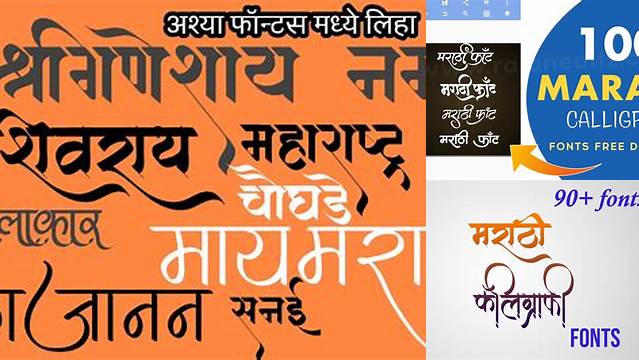
Marathi Fonts: Copy & Paste Online For Free!
Hey everyone! If you're looking to jazz up your text with some cool Marathi fonts, you're in the right place. We're diving deep into the world of Marathi font styles online, specifically focusing on how you can copy and paste them for free. It's all about making your content pop with that unique Marathi flair. So, get ready to explore the best fonts, learn how to use them, and spice up your digital presence! Let's get started!
1. Discovering the World of Marathi Font Styles
Alright, first things first, let's get familiar with the diverse range of Marathi font styles out there. Marathi fonts aren't just about the letters; they're a reflection of the language's rich culture and history. Think about it: each font carries its own personality, from the traditional and elegant to the modern and funky. When you're looking at Marathi font styles online, you'll quickly realize there's something for everyone. The beauty of these fonts lies in their versatility. You can find styles that are perfect for everything – from formal invitations to casual social media posts. The key is to explore and find the ones that resonate with your specific needs.
One of the coolest things about exploring Marathi font styles is how they vary in terms of design and readability. Some fonts emphasize the traditional curves and loops of the Devanagari script (which Marathi uses), while others have been modernized for better readability on screens. You'll encounter fonts with serifs (those little strokes at the end of letters) and sans-serif fonts that are clean and straightforward. This variety is super helpful because it allows you to choose a style that perfectly matches your message and the platform you're using. Whether you need something professional for a business document or something eye-catching for a creative project, the perfect Marathi font is out there waiting for you. Don’t be afraid to experiment and see what speaks to you!
Also, remember that different fonts are suitable for different purposes. For example, a font that's great for headlines might not work well for body text because it could be too ornate or difficult to read. On the flip side, a clean and simple font might lack the character needed for a bold statement. So, take your time browsing through the available Marathi font styles online, try them out in different contexts, and see what feels right. By doing this, you’ll not only find fonts that look good but also fonts that enhance your ability to convey your message effectively. It’s a fun process, so enjoy the journey and happy font hunting!
1.1. Traditional vs. Modern Marathi Fonts
When you dive into Marathi font styles online, you'll quickly notice a split between traditional and modern styles. Traditional fonts often reflect the historical roots of the Marathi language, displaying ornate letterforms and elegant curves. These are perfect for projects where you want to evoke a sense of heritage or formality, like wedding invitations, religious texts, or anything that needs a touch of classical charm. Think about the feeling you want to create; traditional fonts can add a layer of authenticity and cultural richness that's hard to replicate.
On the other hand, modern Marathi fonts prioritize readability and a contemporary look. These styles tend to be cleaner, with simpler designs, making them ideal for digital platforms, websites, and modern designs. Modern fonts typically offer better legibility on screens and are designed to cater to the fast-paced, digital world. You'll find them in use everywhere from social media posts to the latest apps. The key to choosing the right font lies in matching the font style to your project’s overall aesthetic. Does your project require a classic feel or a sleek, up-to-date vibe? By understanding this difference, you can make the best choice.
Both traditional and modern Marathi fonts have their strengths. Traditional styles offer a glimpse into the rich past, while modern styles keep up with the demands of the digital age. Many designers use both, sometimes mixing traditional and modern fonts to achieve a unique, balanced look. It's all about knowing your audience and what message you want to communicate. So, when exploring Marathi font styles online, take the time to appreciate the distinct qualities of each type. This will help you make informed decisions and create projects that truly resonate with your audience.
1.2. The Importance of Font Families
Understanding font families is crucial when working with Marathi font styles online. A font family includes a base font and its variations. This helps you keep a consistent style across your design, ensuring everything looks polished and professional. For example, if you choose a particular Marathi font, the font family would likely include variations like regular, bold, italic, and sometimes even condensed or expanded versions. This range of options helps you emphasize different parts of your text without having to switch to a completely different font.
Using a complete font family streamlines your workflow and maintains a cohesive look. Imagine writing a document where the headings, subheadings, and body text all use the same font family. This makes everything look more organized and easier to read. The regular style can be used for the main text, bold for emphasis, and italics for quotes or foreign words. By sticking to one family, you ensure that your project maintains visual harmony and communicates your message more effectively. Moreover, using different weights and styles within a font family can help you create visual hierarchy.
Selecting a suitable font family from the many Marathi font styles online can be a game-changer for your designs. Consider the context in which your font will be used. Is it for a website, a brochure, or a presentation? Each format requires a slightly different approach. Check how well each style within the font family works at various sizes. Will it remain readable in small sizes? Is it bold enough to stand out as a heading? Take the time to experiment and discover how the different variations within the family interact with each other. Doing so will help you choose a versatile font that boosts the overall impact of your work.
4.3. Using Marathi Fonts in Graphic Design Software
Working with Marathi font styles in graphic design software opens up a world of creative possibilities. Programs such as Adobe Photoshop, Illustrator, and Canva let you import and use Marathi fonts to create stunning visuals. These platforms make it super easy to add text, customize it, and combine it with other design elements.